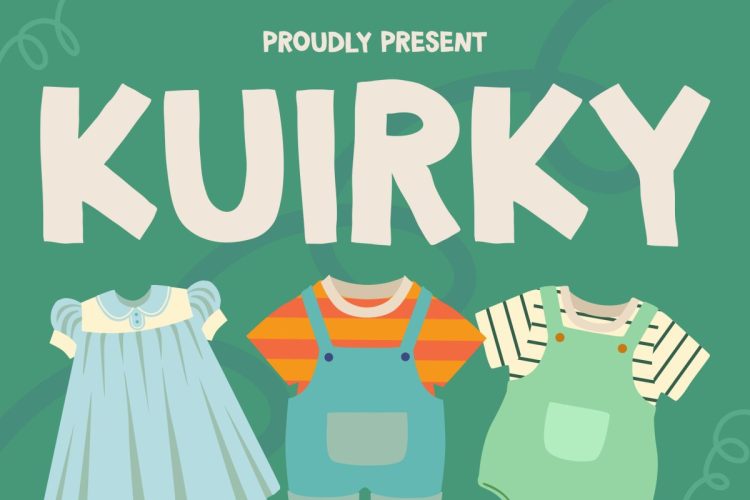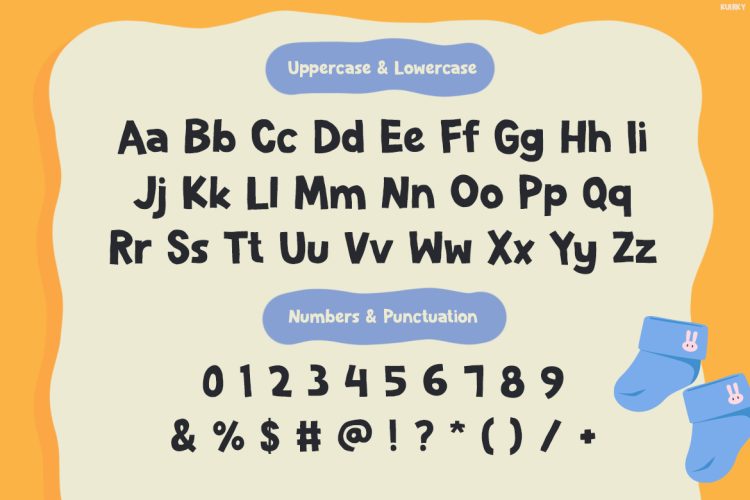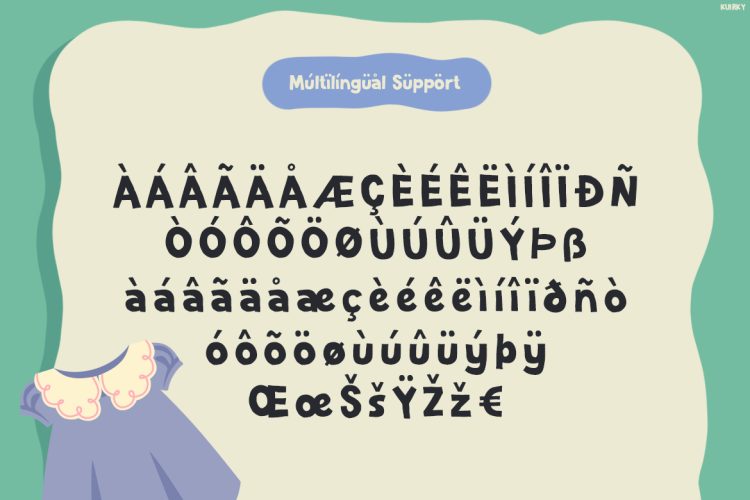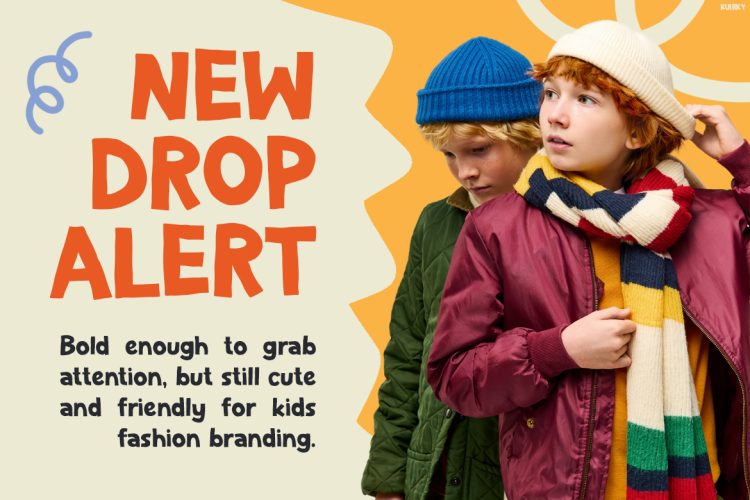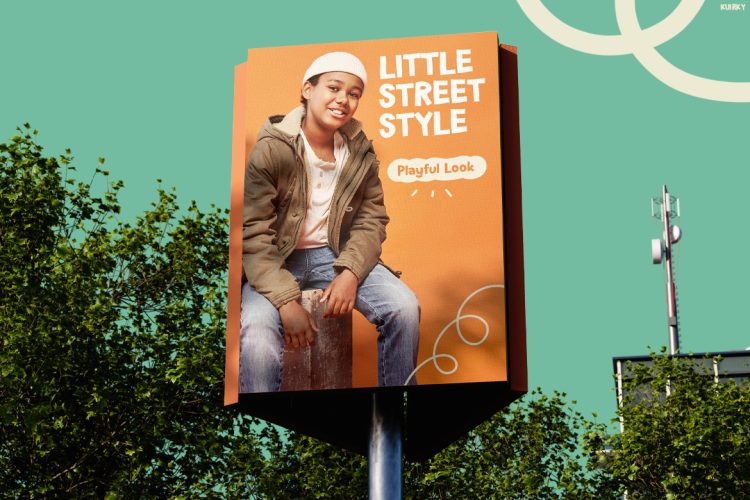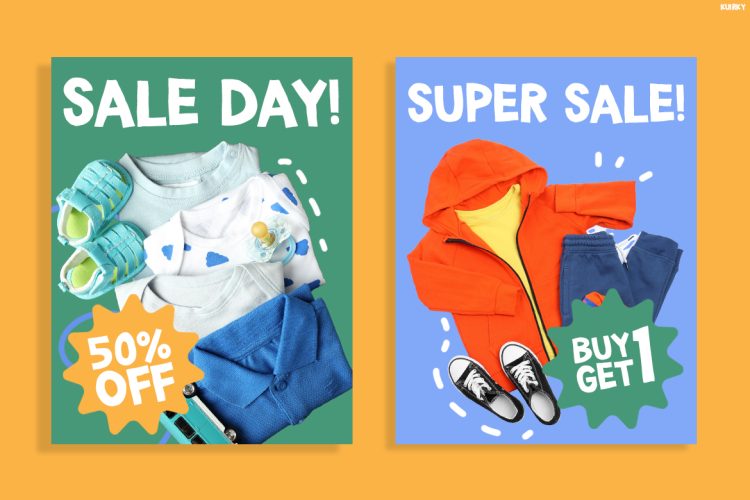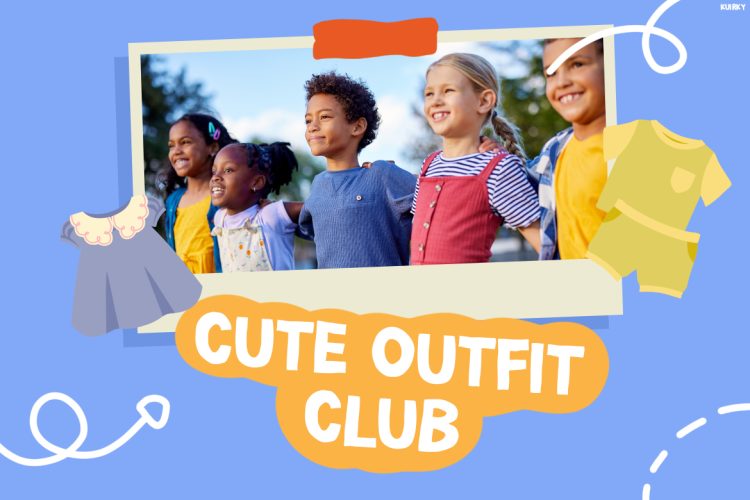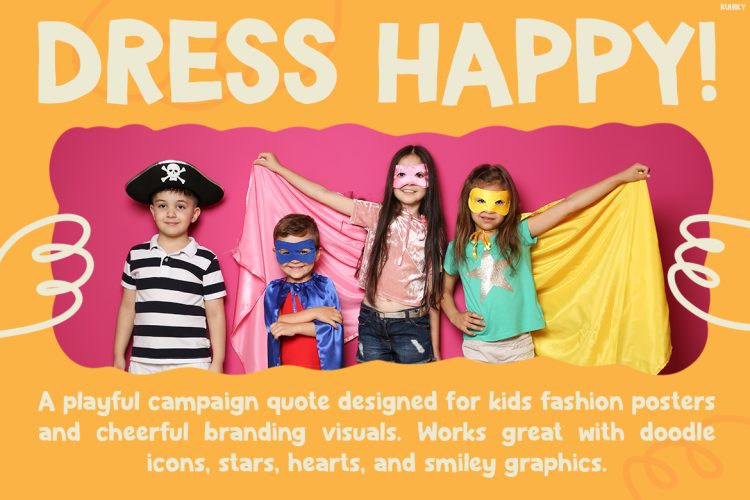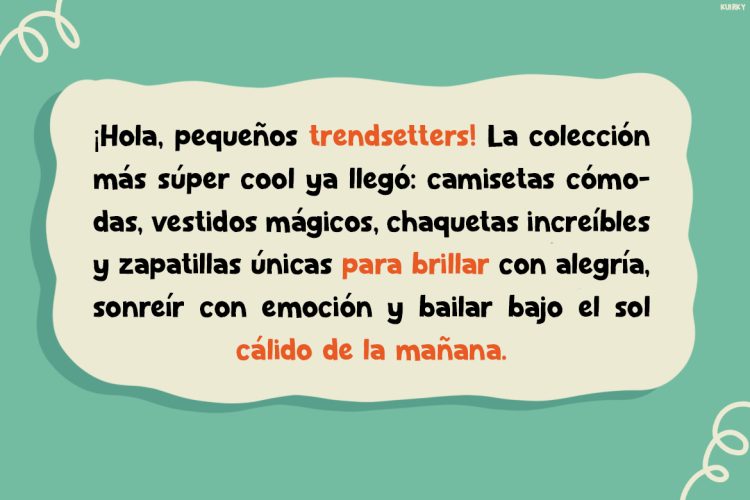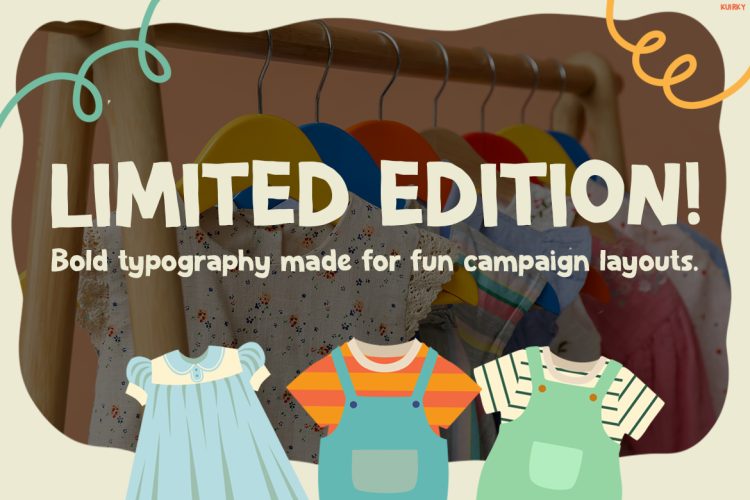
Kuirky โ Playful Kids Font Full of Fun Energy
Kids Font Kuirky brings cheerful vibes and bold personality to every design. Moreover, its playful hand-drawn style feels friendly and easy to love. The chunky letterforms and soft curves create a cute and energetic look. Its fun proportions also make every word easy to read. This font stands out because it blends strong impact with warm charm. In addition, Kuirky makes childrenโs content feel more colorful and memorable. With multilingual support for 67 languages, it works perfectly for global creative projects.
Why It Stands Out
Kuirky is perfect for designs that need fun and happiness. Therefore, it works beautifully for kidsโ branding and toy packaging. It is also great for school projects and book covers. Birthday invitations and classroom posters look more exciting with it. Furthermore, it fits educational materials, YouTube thumbnails, and social media posts. Its bold rounded style makes every message feel friendly and eye-catching. As a result, designs look more engaging in print and digital formats.
This font is ideal for teachers and childrenโs book authors. Toy brands and daycare owners will love its playful style. It also works well for school designers and content creators. Kidsโ fashion brands and party planners can use it beautifully. In addition, creative entrepreneurs can build stronger playful branding. It is perfect for educational content, packaging, and cheerful promotions.
Make your designs feel more joyful with Kids Font Kuirky. If you want a kids font that looks fun and versatile, this is the right choice. As a result, every project feels more lively and unforgettable. Choose Kuirky today and bring playful energy to every design.